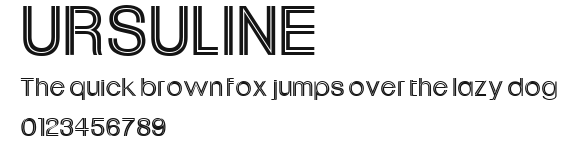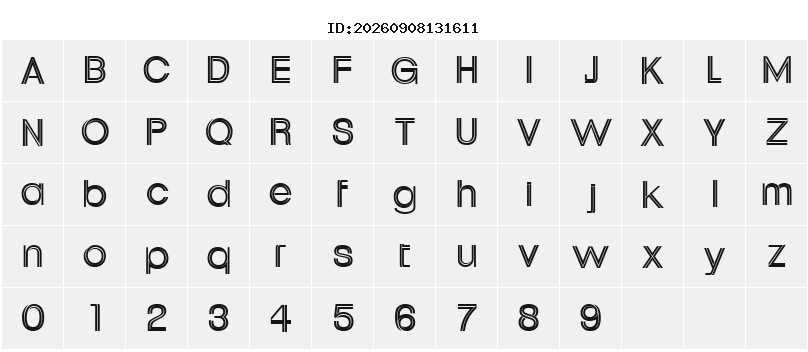
• Font Name: URSULINE
• Full Font Name: URSULINE Regular
About URSULINE.ttf
URSULINE.ttf is a modern, elegant sans-serif font designed for ultimate readability and visual harmony. Perfect for branding, headlines, web design, and print materials.